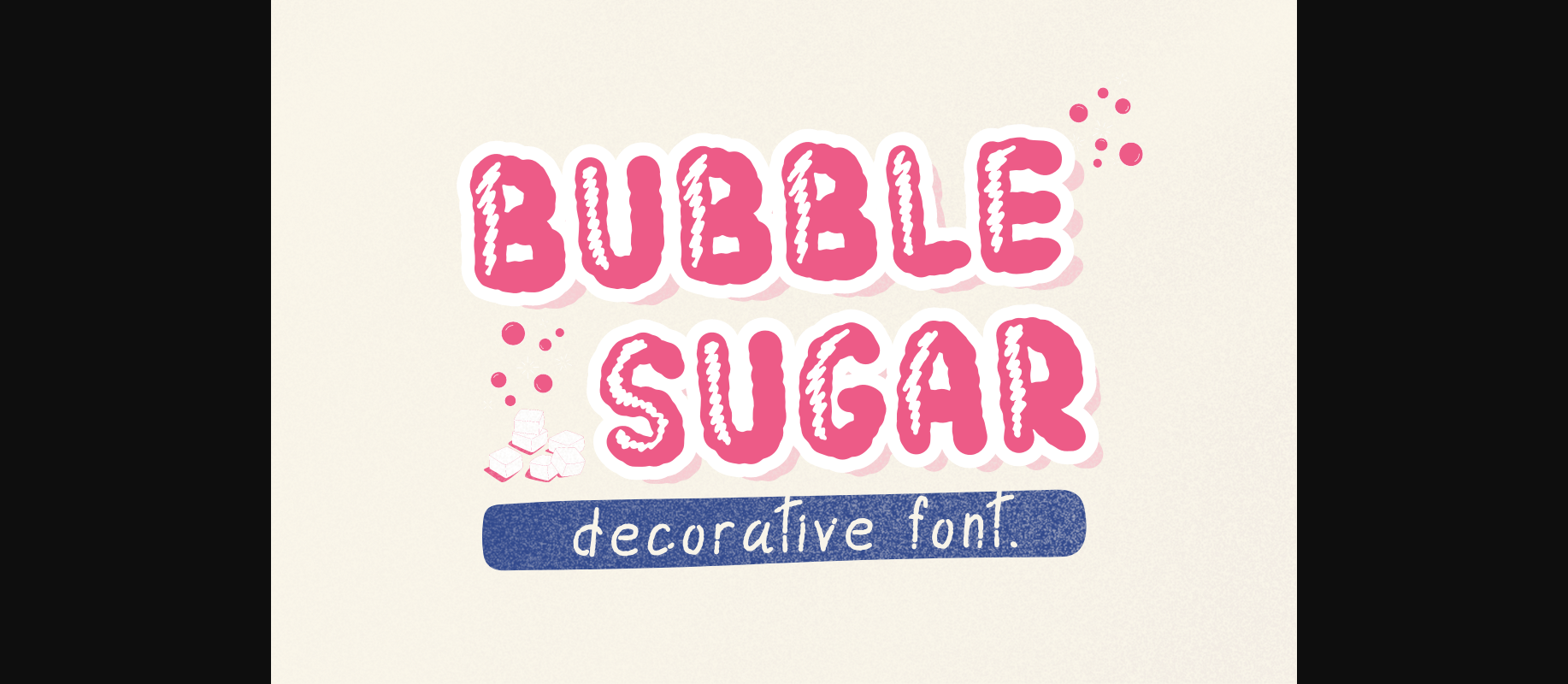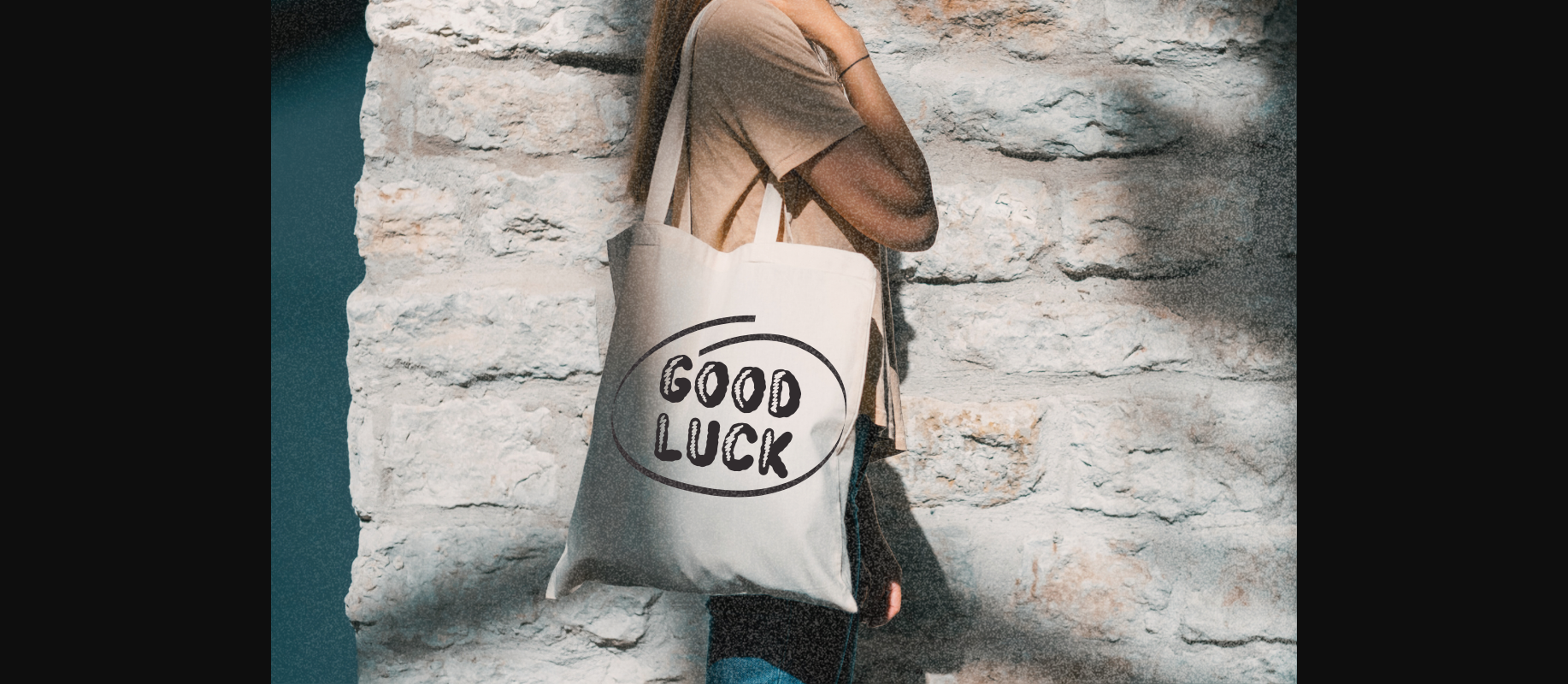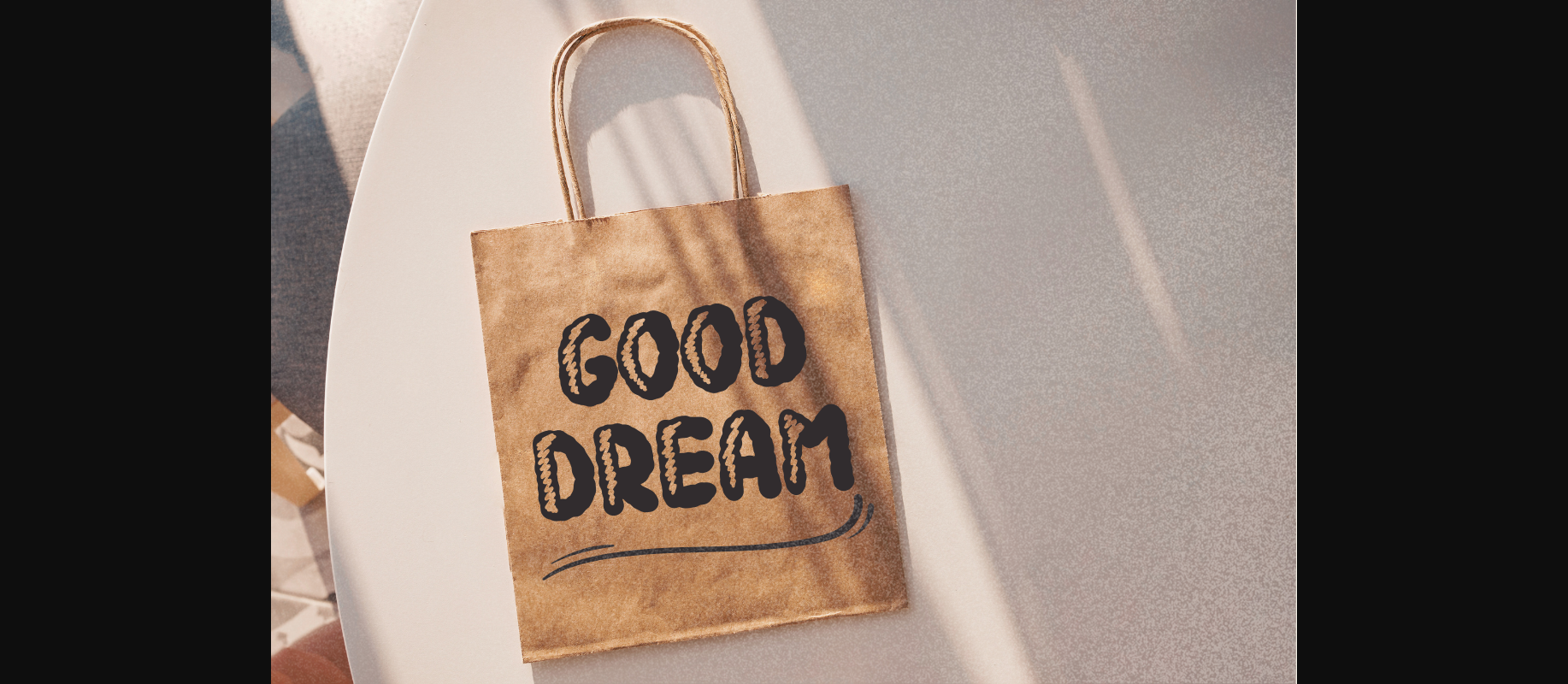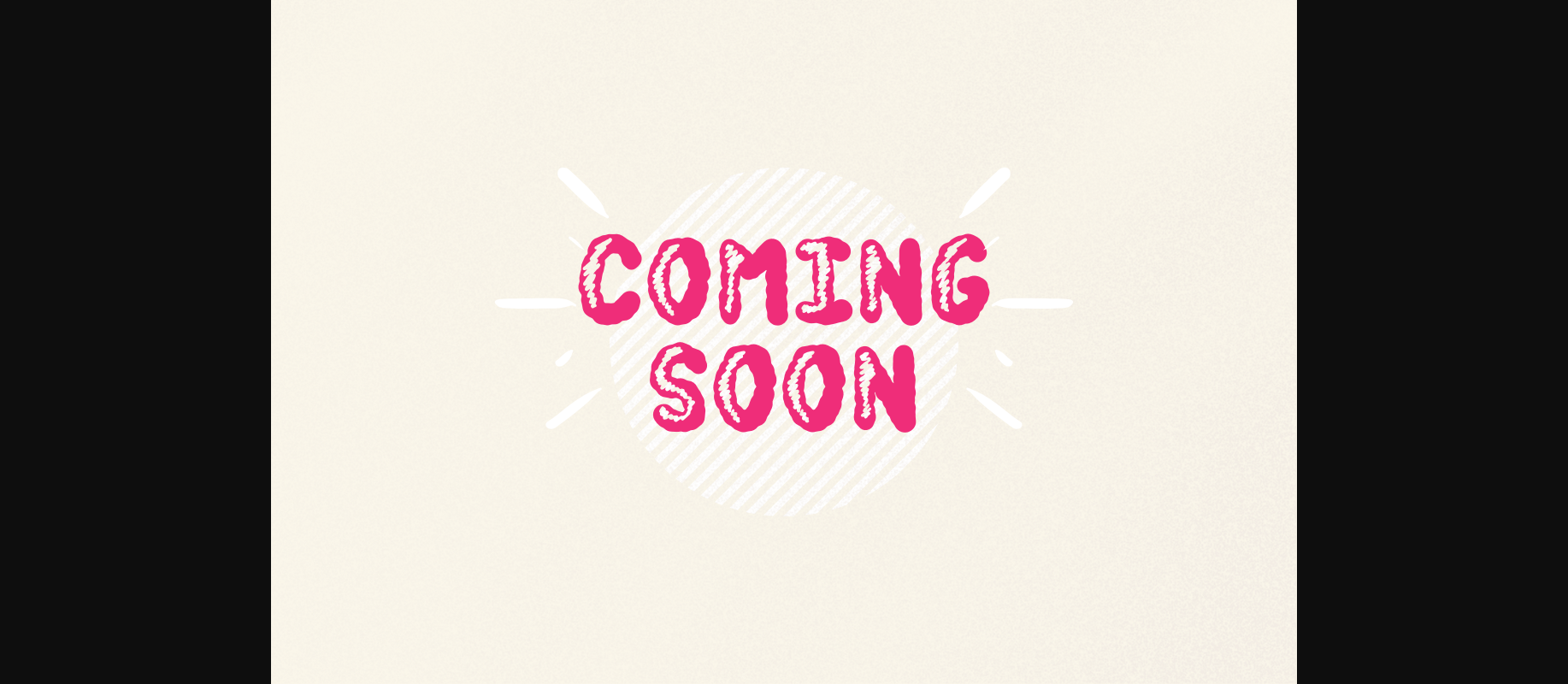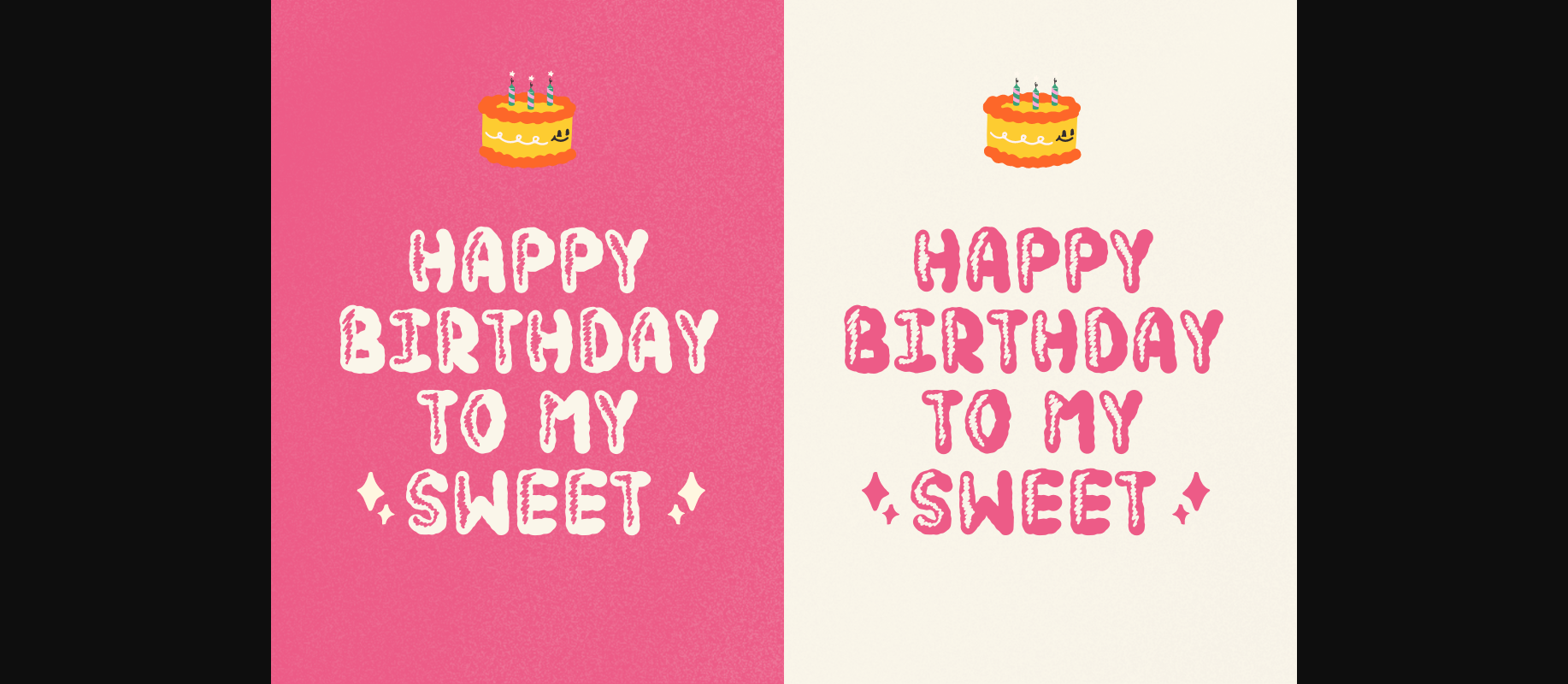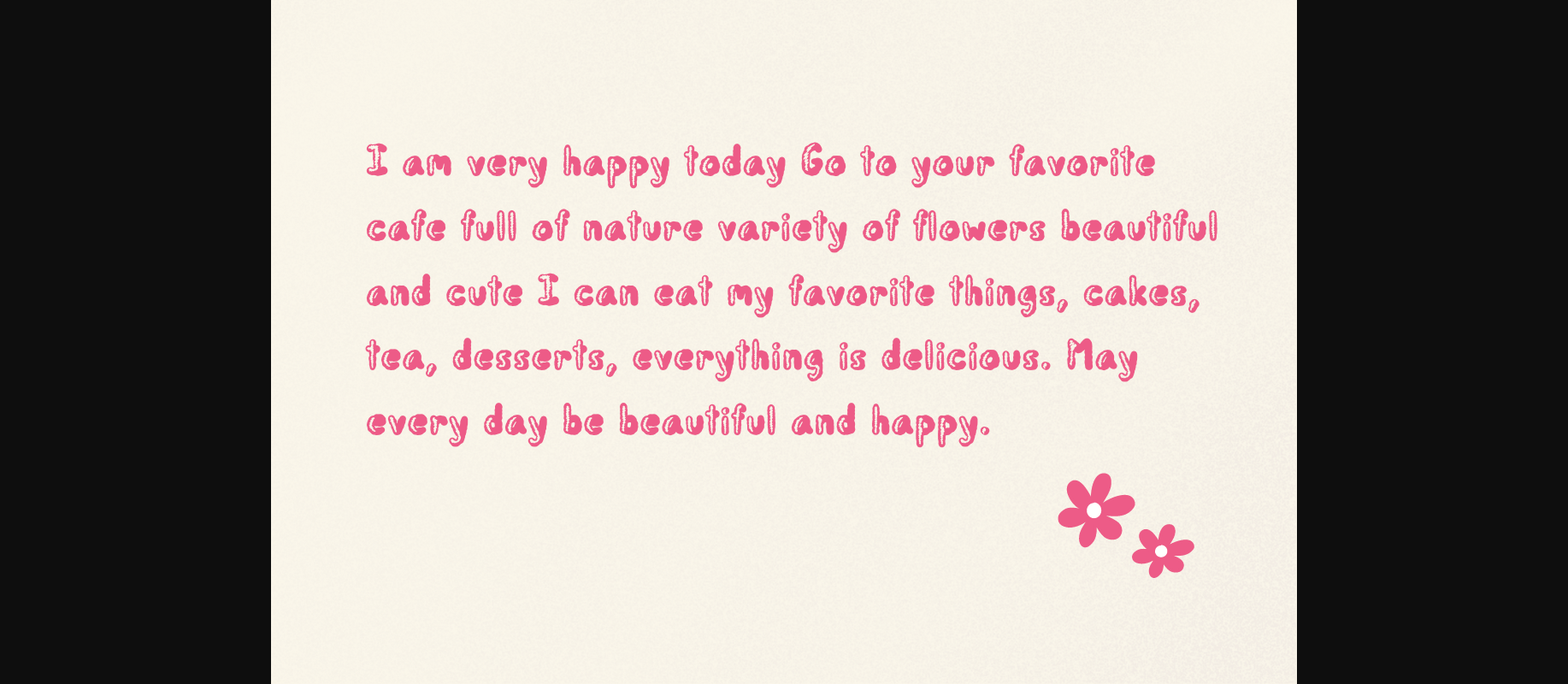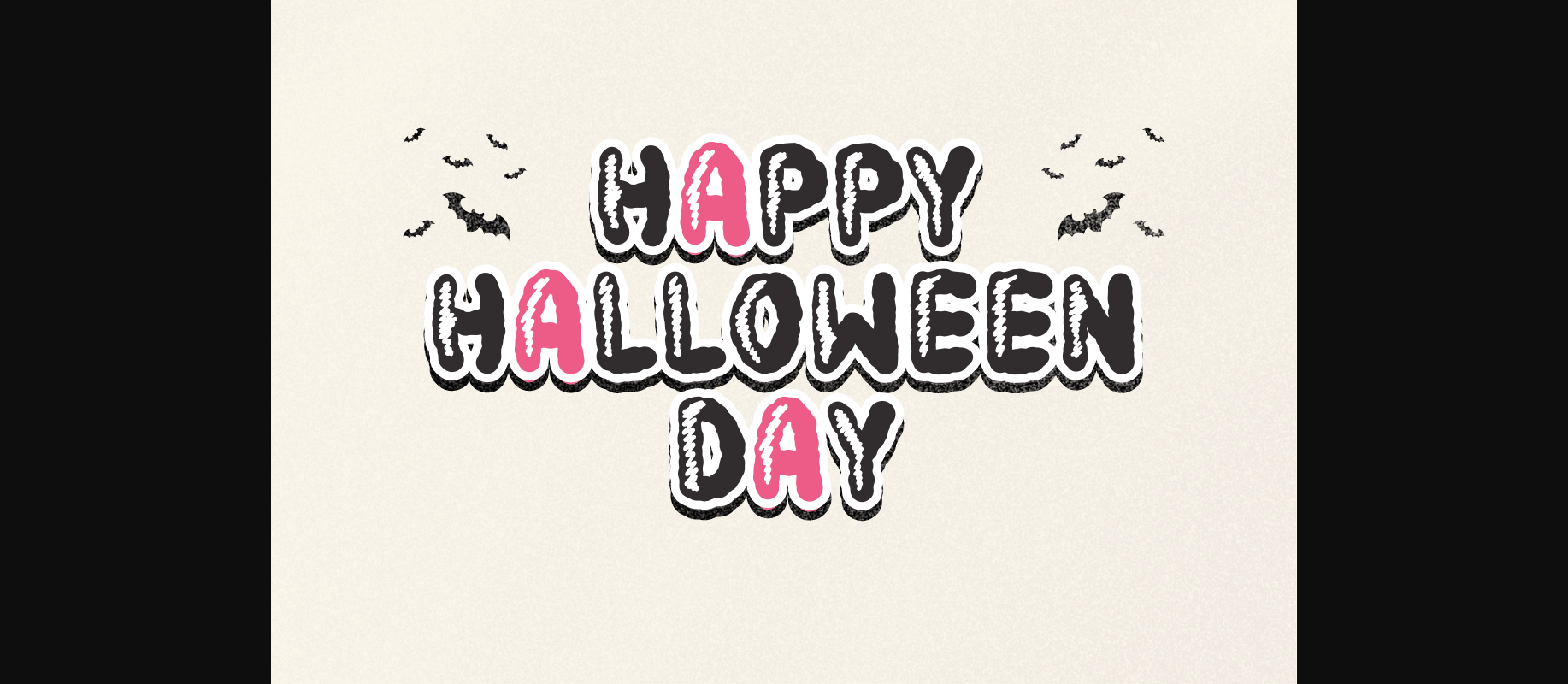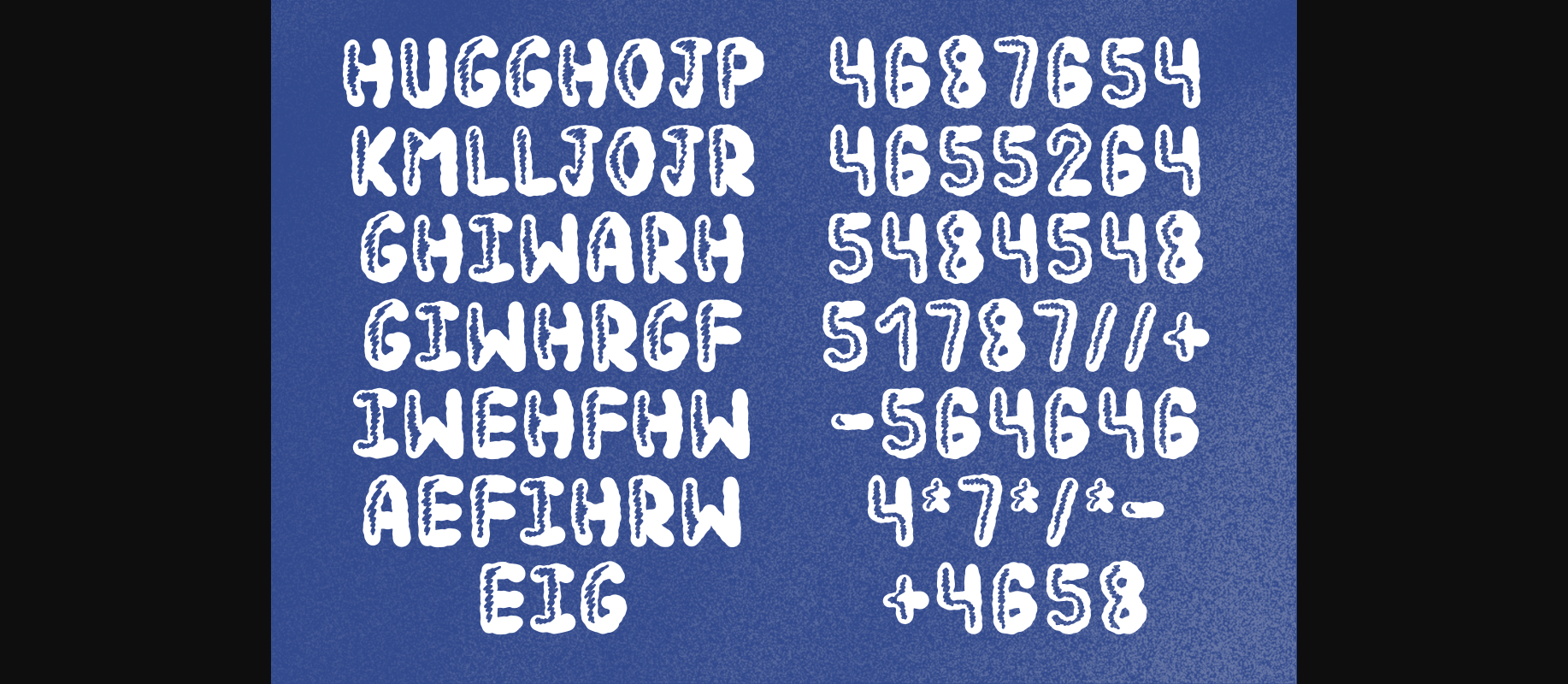
Bubble Sugar Font
About Bubble Sugar Font
Bubble Sugar is a decorative font. Cute, yet charming it gives a playful feeling that can be used to create a variety of projects.